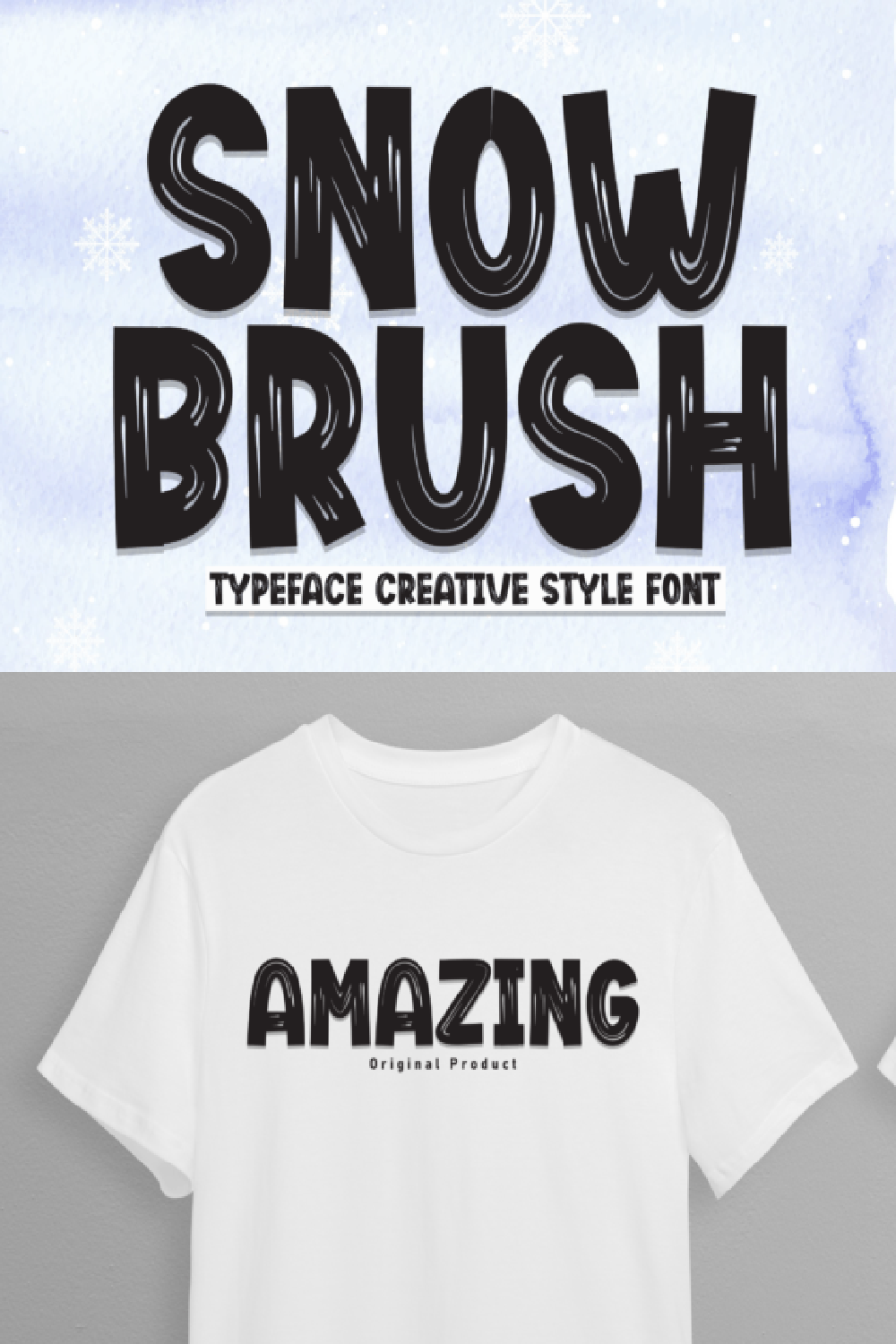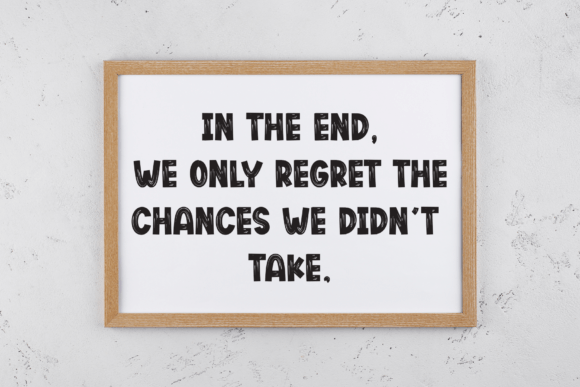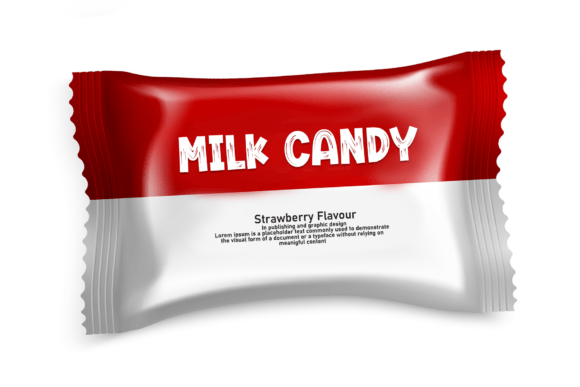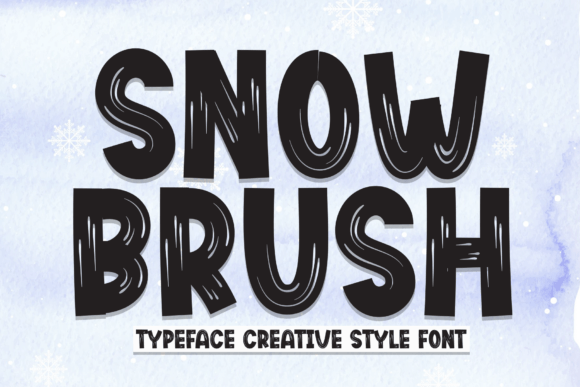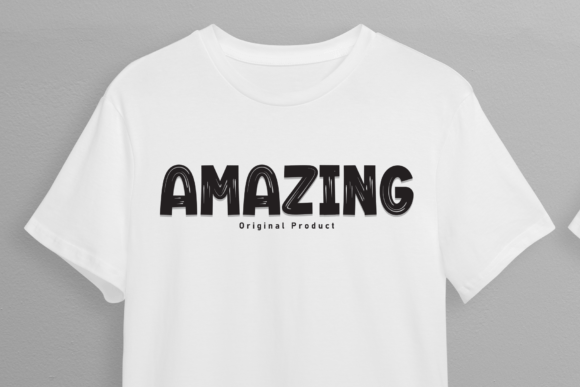
Snow Brush Font: A Playful Display Font for Cricut & DIY Projects
About the Snow Brush Font
The Snow Brush Font is here to transform your projects with its distinctive character and style. Snow Brush is a bold, playful font with a brushstroke style. It has a unique, hand-painted look, making it perfect for adding a fun, artistic touch to your designs. The thick strokes and dynamic curves make it stand out and grab attention.